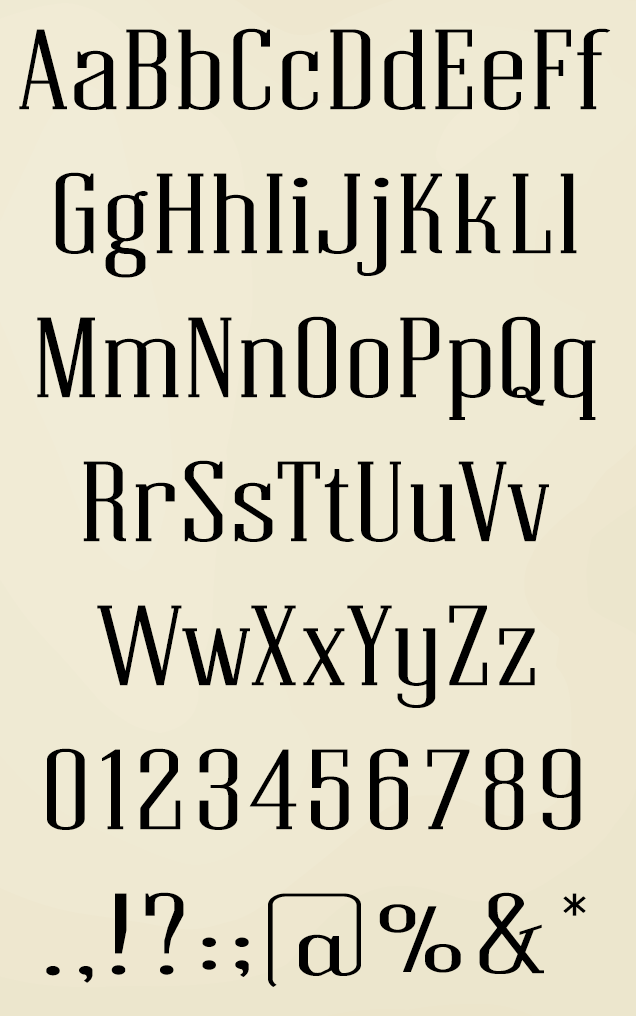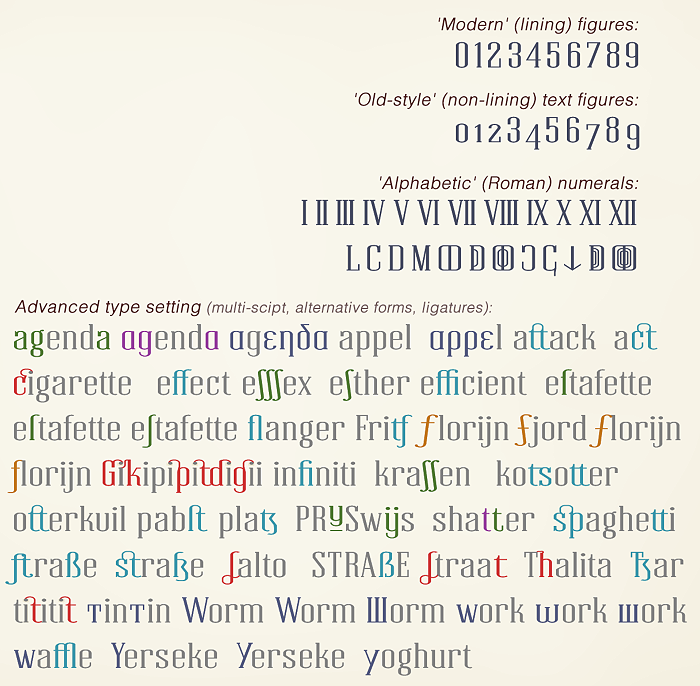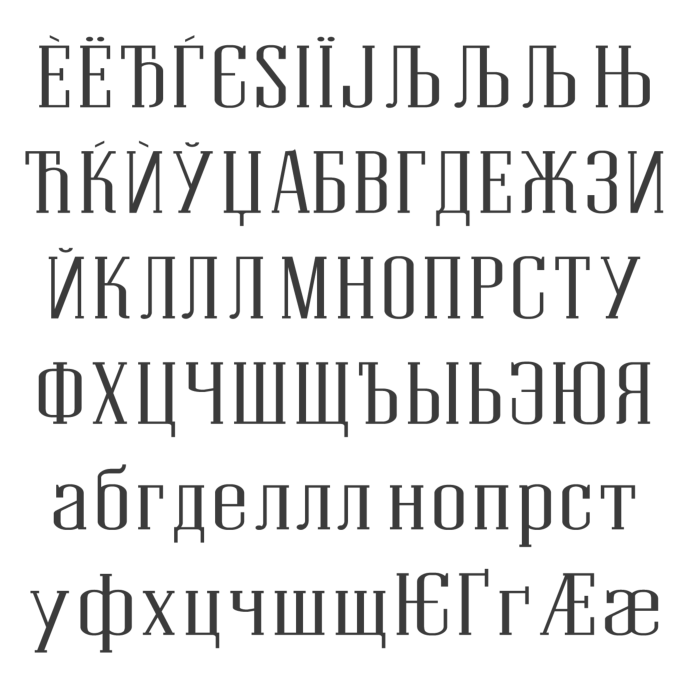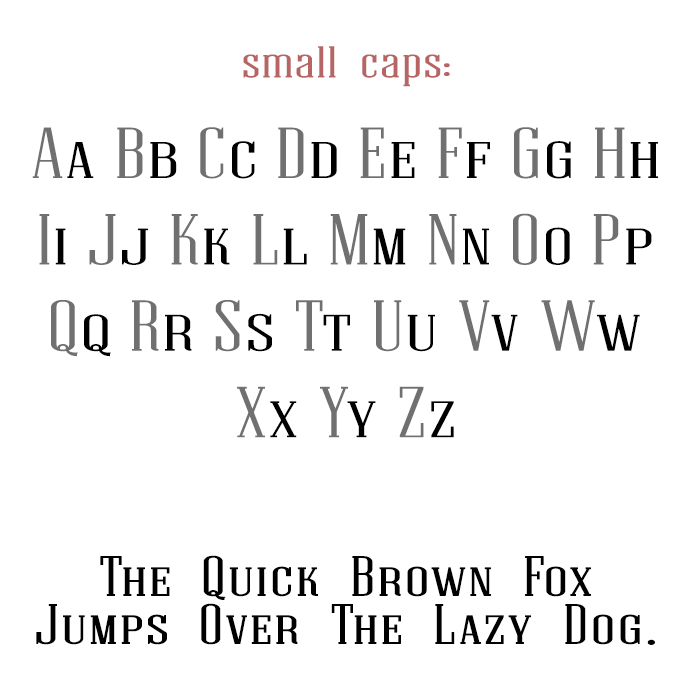
• DIDUDE (Regular) ― Contemporary Neo-classical "Didone" style serif
The idea revolved around the basic concept for 'Didone'-style typefaces.
A genre characterized by modern unornamented standard letterforms, which was very popular for general-purpose printing during the 19th century. DIDUDE is by no means an attempt to embarge on a quest trying to deliver a conceptual overhaul of this genre. Its main goal was to achieve greater simplicity, without sacrificing that traditional neo-classical personality. Instead of leaning towards the typically more 'Humanist'-influenced style with distinct stroke modulations and proportional forms, geometry and symmetry were introduced to design this more simplified take on the traditional historical style. It has been crafted with a structural logic of its own.
"Less human, more geometry.." A fusion of geometry and neo-classical elements that blends the past with the present.
Main distinctive features for DIDUDE (Regular) are:
Unbracketed serifs, vertical orientation of weight axes with a strong contrast between thick and thin strokes, slightly squarish-shaped round characters and its emphasized business-like nature. So the majority of important characteristics that distinguish the neo-classical style have been incorporated.
Certain features that were implemented into DIDUDE's design are somewhat setting it apart from most other, more traditional typefaces in this genre, and most notable is the more relaxed contrast ratio that was choosen for this particular project.
Further personalizing touches were made to stroke endings and curve geometry, providing slight 'calligraphy'-inspired decorative variation with occasional spurs, breaks, curved finials and plain monolinear terminals.
Topping it all off with an ever so gentle height deviation that sparks a subtle rhythm to any line of text. Last but not least, most of the optical clunkiness was addressed and either corrected or compensated.
There is a large character set that includes a little bit of everything:
Basic latin character set, latin-1 supplement set, stylistic ligatures and glyph alternatives, punctuation marks, lining and non-lining text figures, roman numerals, (Partial) Greek and Cyrillic, also numerous non-lingual technical, mathematical and decorative stuff was included.
Only partially kerning for now and this remains a WIP.
I see you did lots of work on this one, but cyrillic is extremely ugly
@Evgeny: Thanks for your comment, I'm aware about the Cyrillic quality not being at the same level of the Latin alphabet. But it isn't complete either, and is still in dev stage ??
Have refashioned the majority of the Cyrillic letters and still working the improvements, but I think I came a long way into the right direction compared to what it previously was.
Full A-Z small caps included.